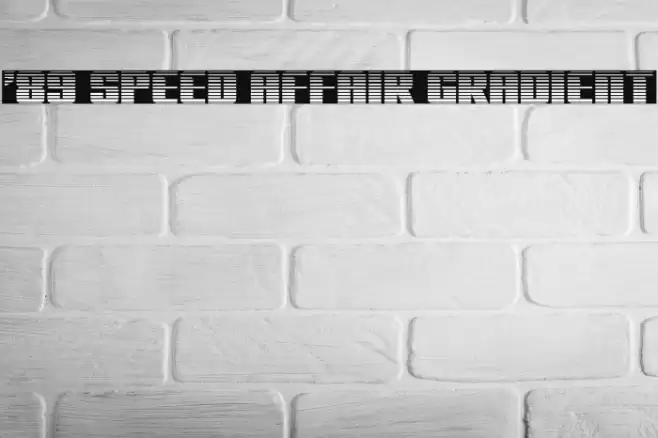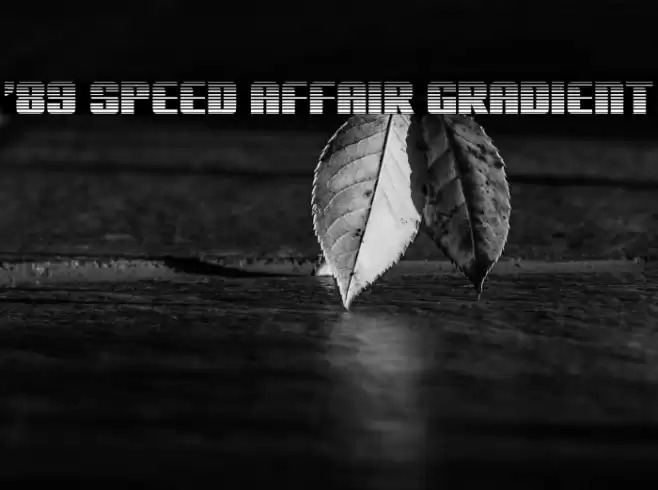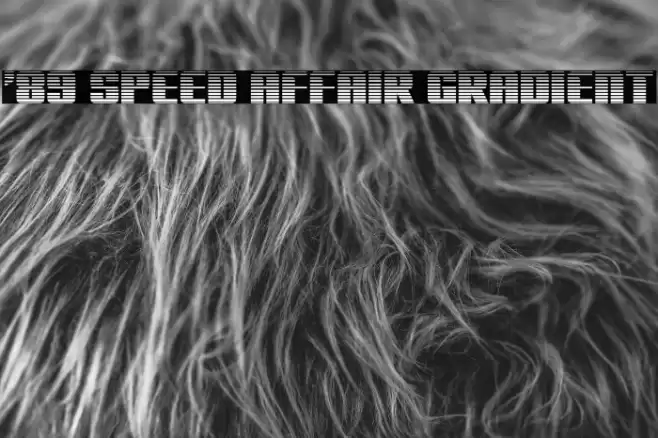
'89 Speed Affair Gradient Font
'89 Speed Affair Gradient Description
This font features a bold, dynamic design with a distinct horizontal line pattern that creates a sense of speed and movement. Each character is composed of parallel lines that give it a unique, futuristic appearance. The uppercase and lowercase letters maintain a consistent style, while the numbers and special characters follow the same design principle, ensuring uniformity across all glyphs. The font's boldness and striking visual impact make it ideal for projects that require a modern and energetic look.
A bold, dynamic font with a horizontal line pattern, evoking speed and modernity from Regular fonts.
- Font: '89 Speed Affair Gradient
- Proposed Projects: Ideal for sports branding, automotive advertisements, futuristic designs, and dynamic posters.